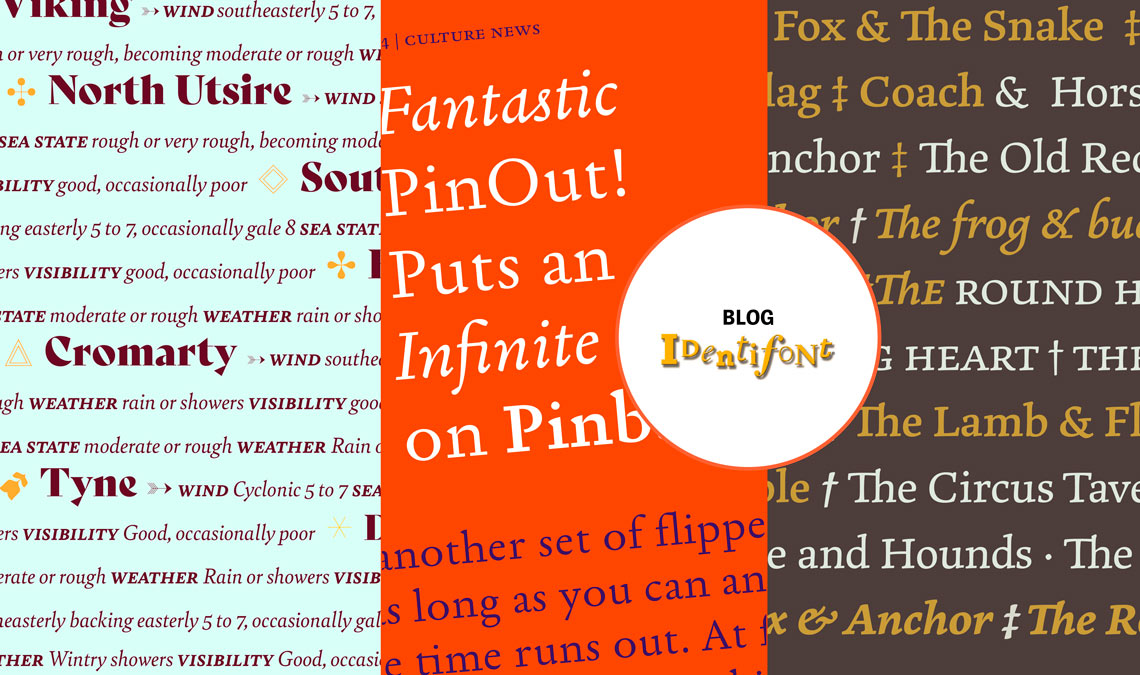
Garalda, Bely and Marco reviewed in Identifont by Stephen Coles.
Identifont was launched in 2000 and since then it has become one of the largest independent directories of digital fonts on the Internet. It provides a useful and easy to use tool to identify fonts based on particular features. Every month the team adds hundred of fonts to the database and in the blog Stephen Coles selects the most interesting ones.
We are delighted to see Toshi Omagari’s Marco and Roxane Gataud’s Bely in September 2016s round up and Xavier Dupré’s Garalda in November’s post. in very good company. According to Coles, Marco ‘is a virtually effortless translation of calligraphy into a contemporary serif. It’s one of the fresher designs to be inspired by the well-trod 15th-century Venetian models.’ and Bely, ‘it’s the debut of a designer who seems unbound by the standard type design conventions. Bely is a truly modern take on the oldstyle serif.’